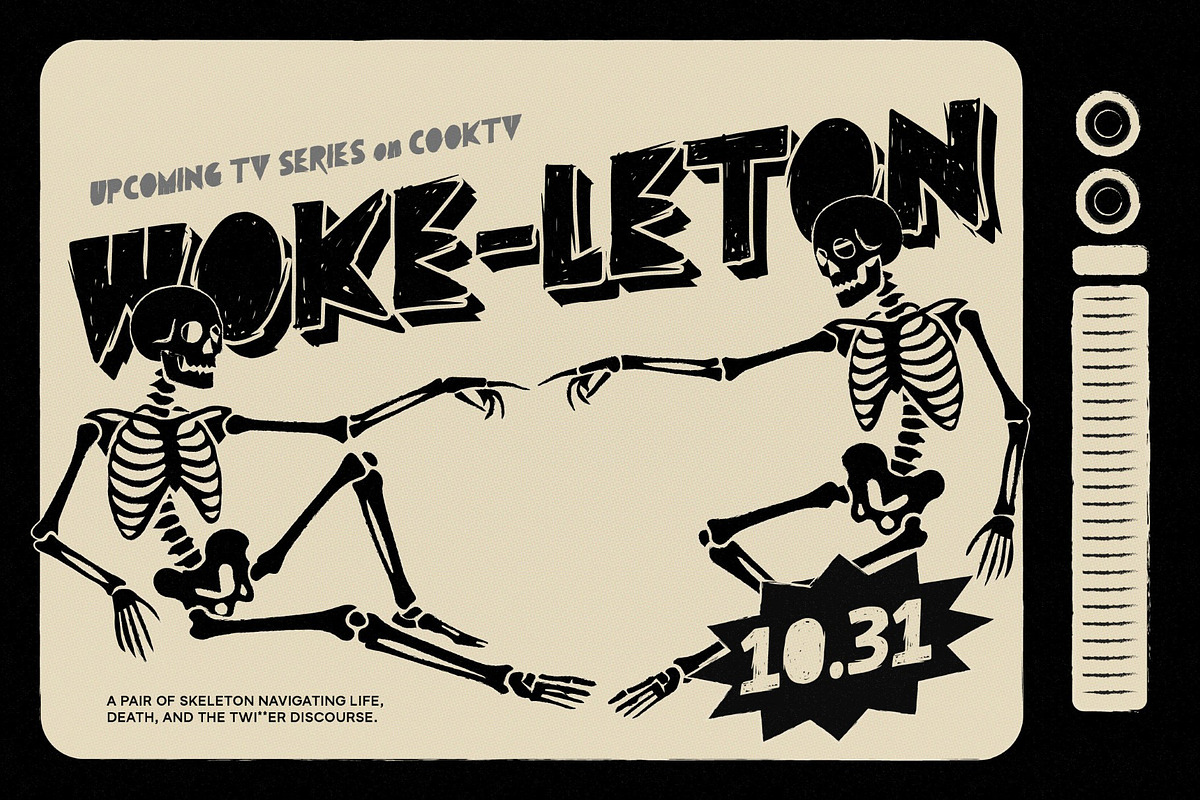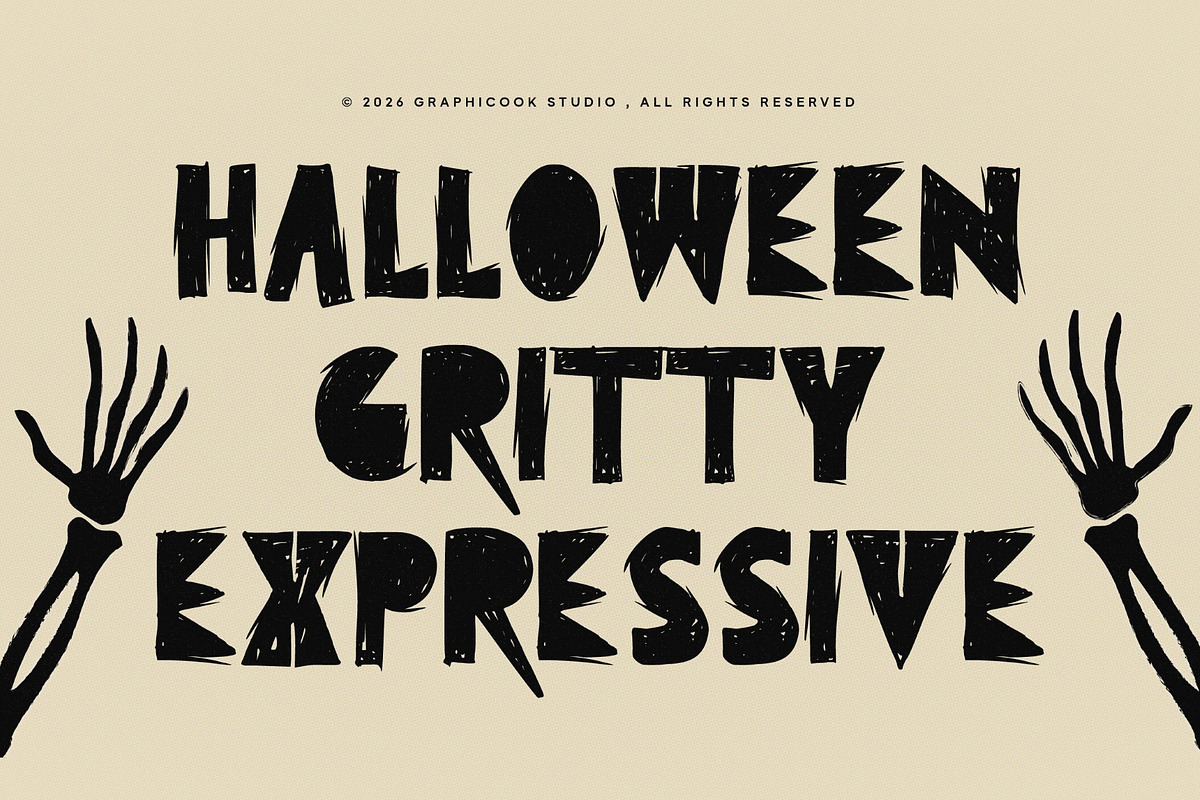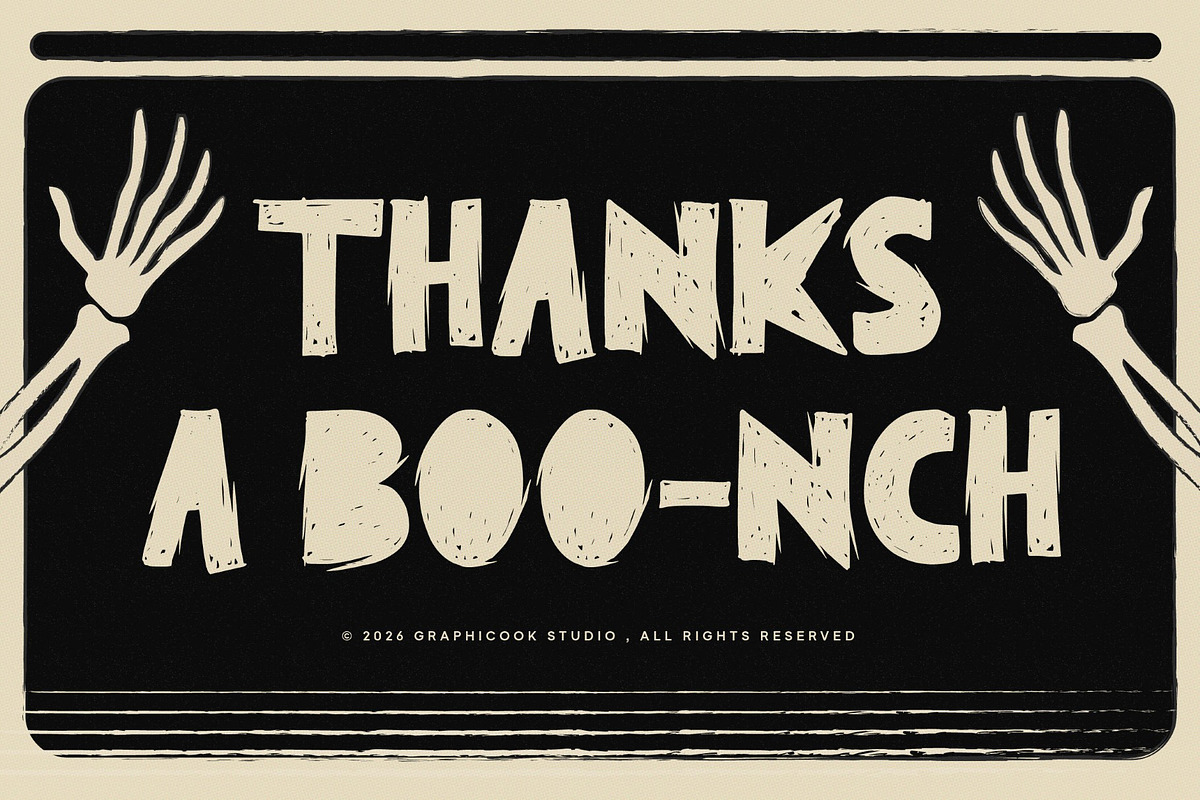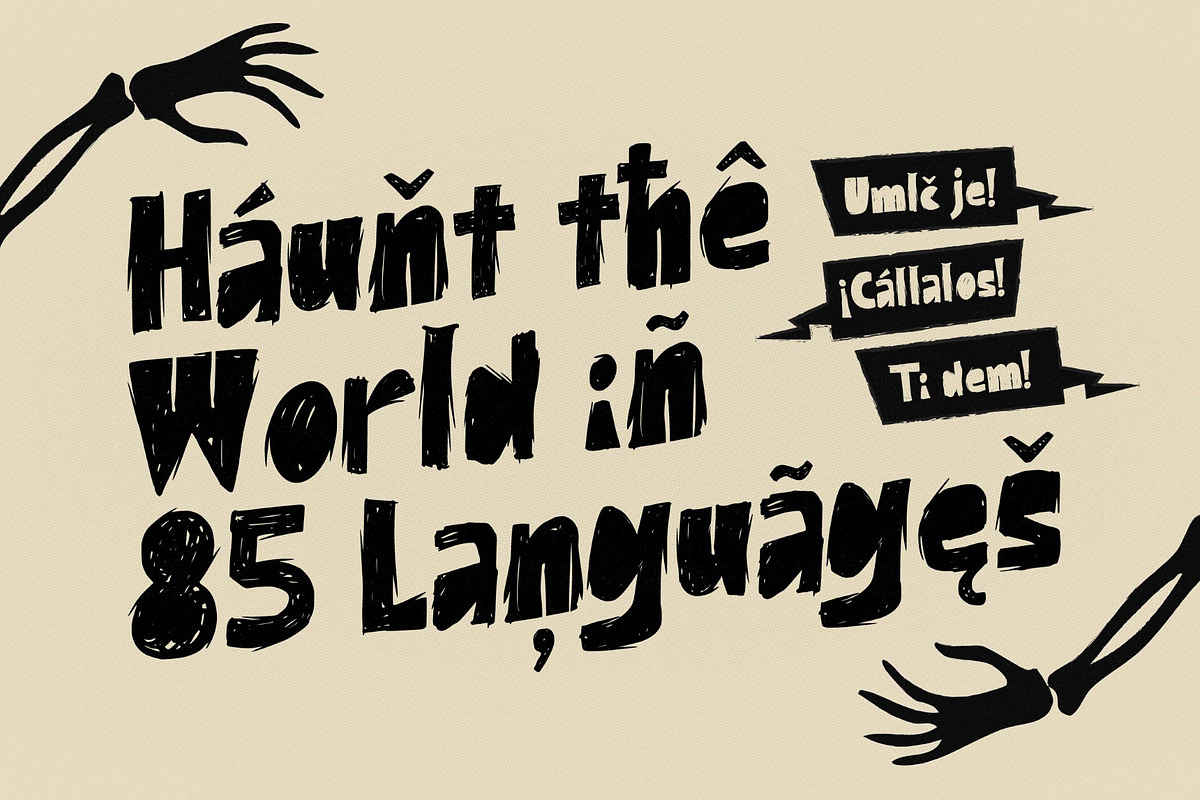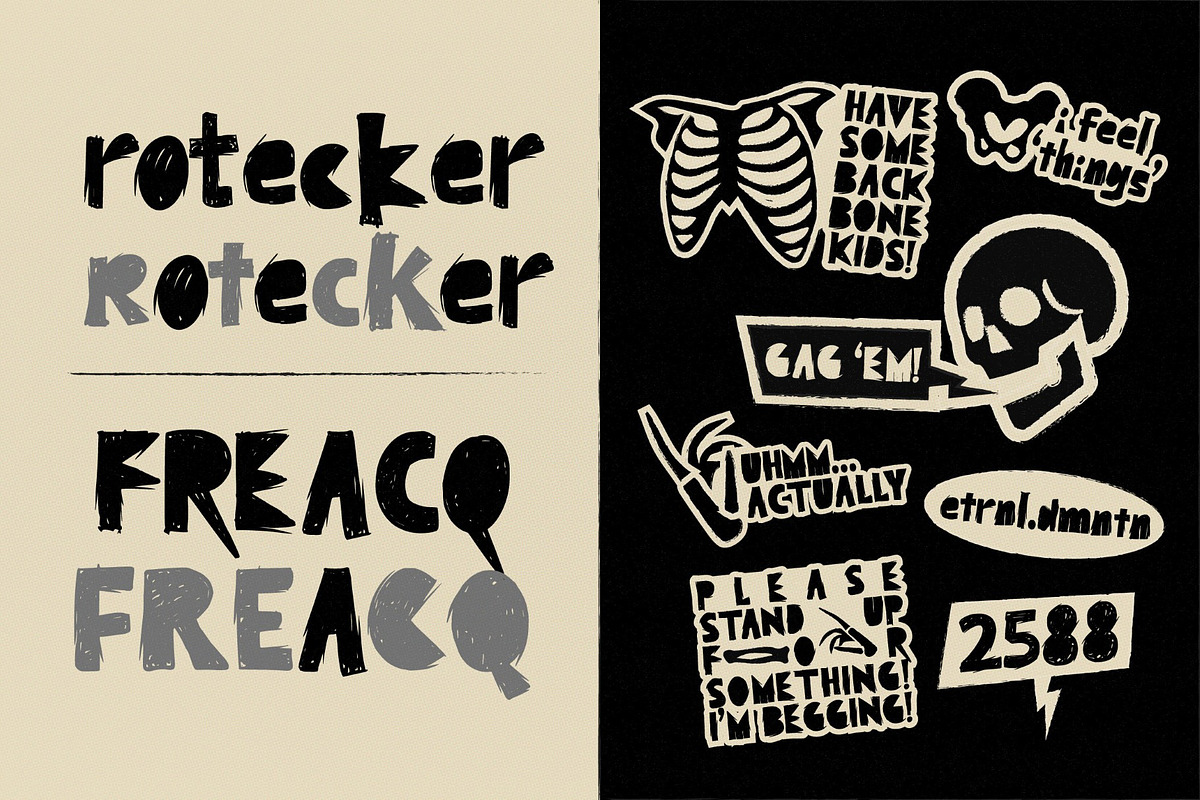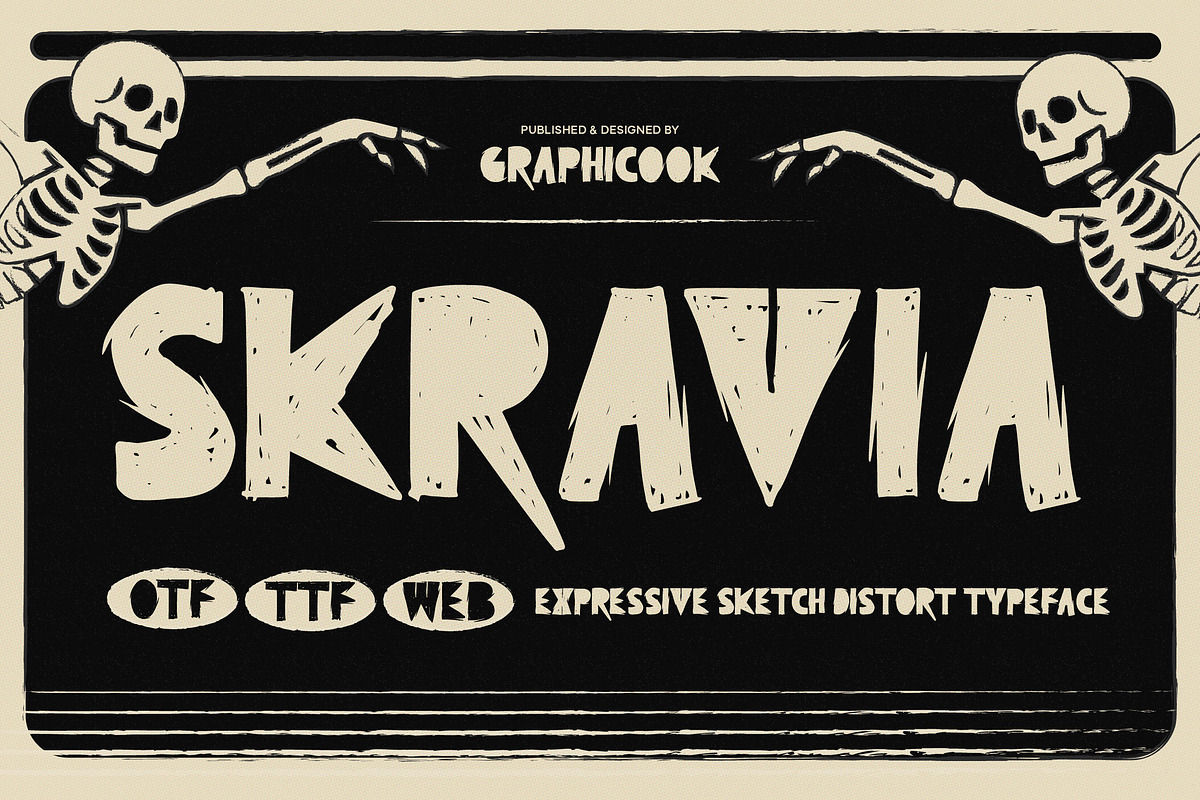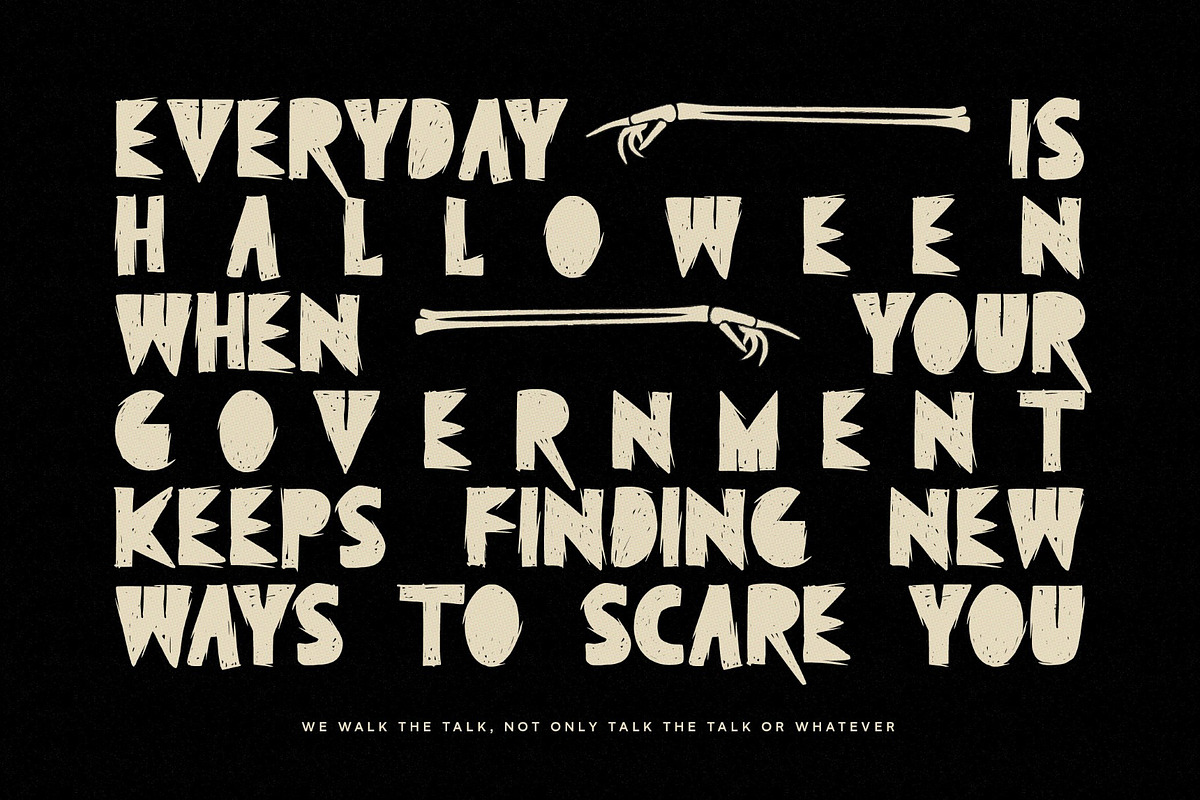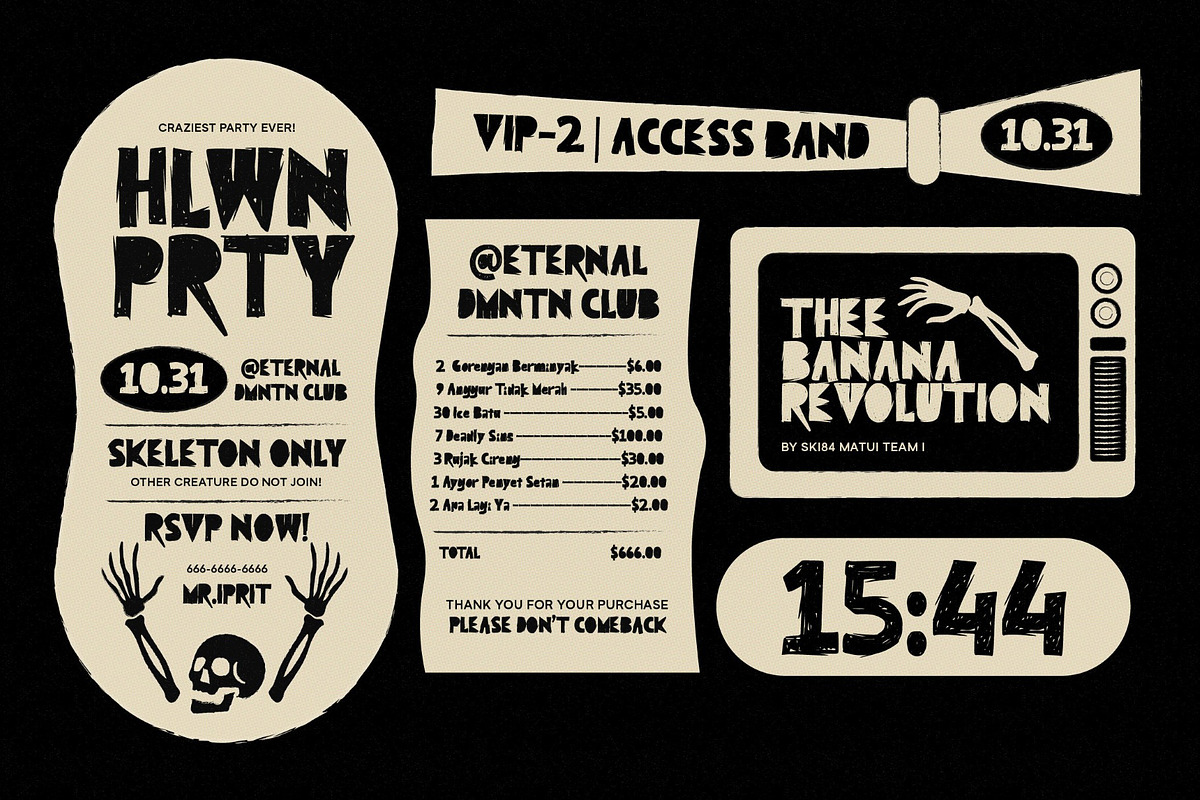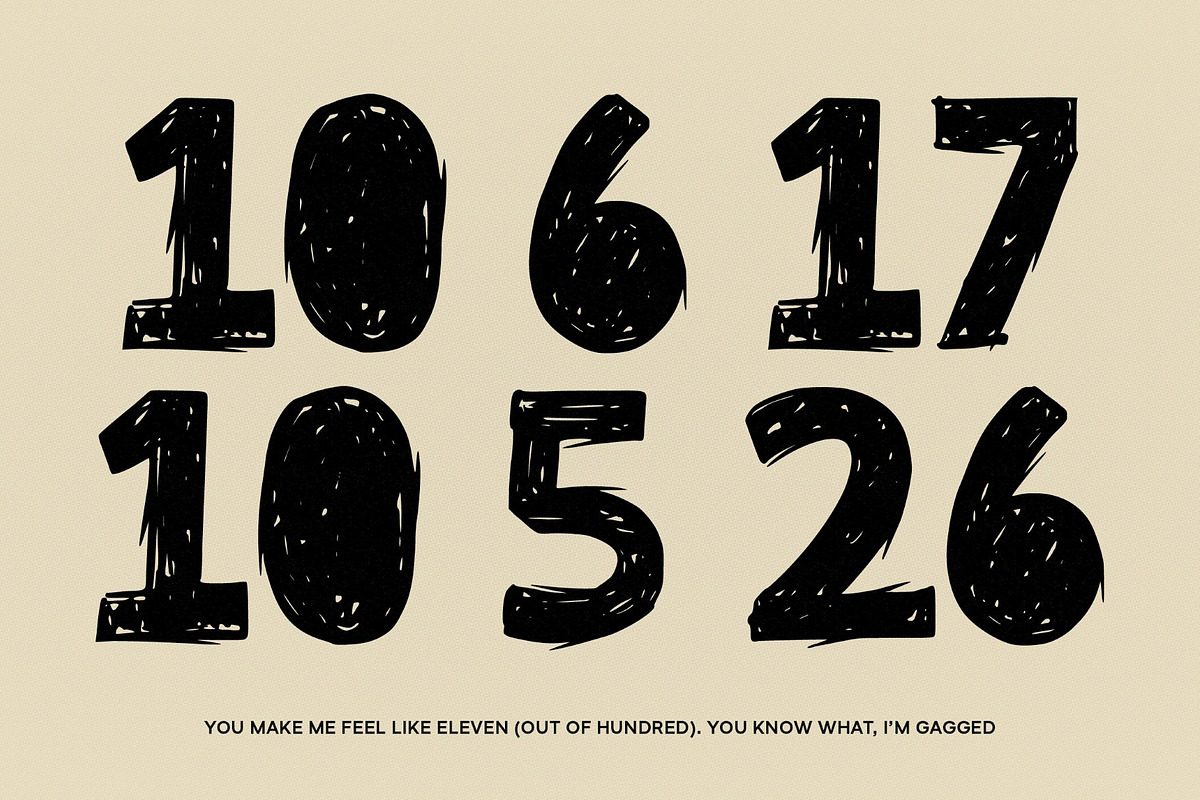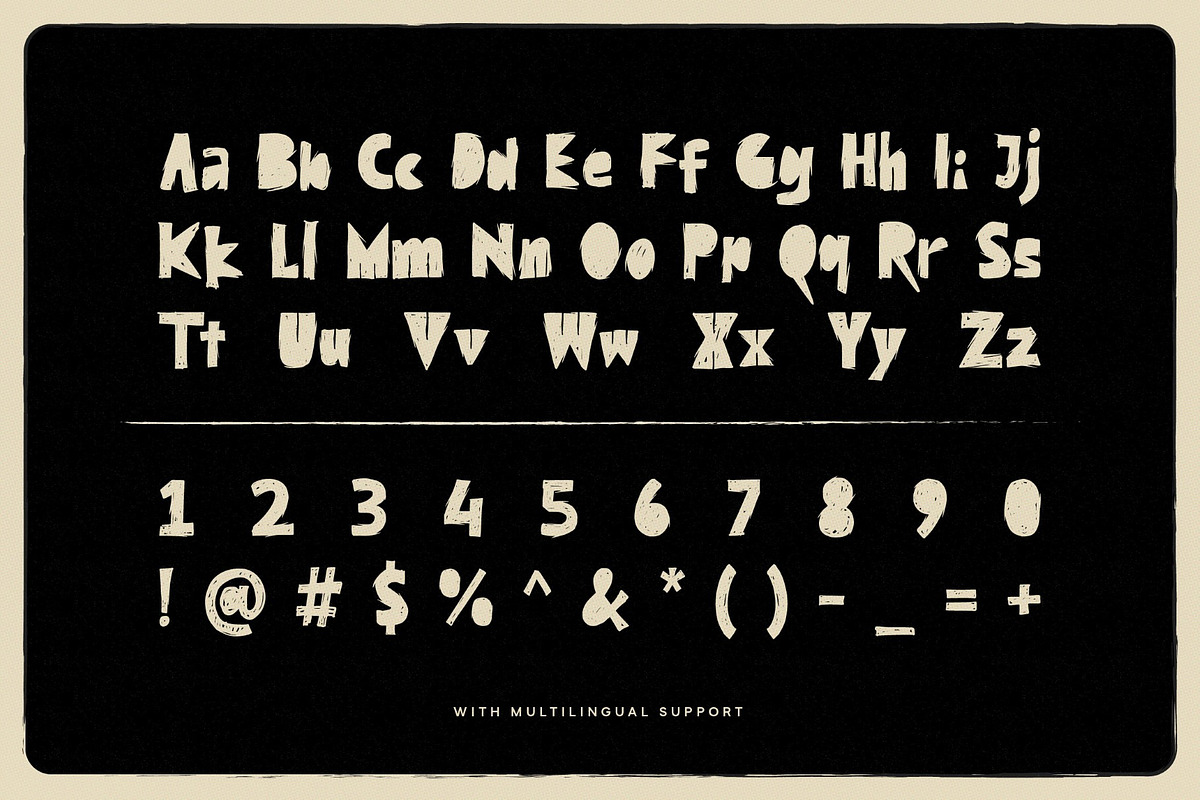
Skravia
Skravia is an expressive sketch display typeface with a raw, distorted, and rebellious personality. Inspired by hand-drawn lettering, grunge textures, and dark underground aesthetics, its irregular shapes and rough details create a bold handmade appearance with plenty of character.
It is perfect for headlines, logotypes, magazines, packaging, quotes, movies, games, cover albums, book covers, and flyers, it's a perfect solution for creating eye-catching designs that stand out in any context.